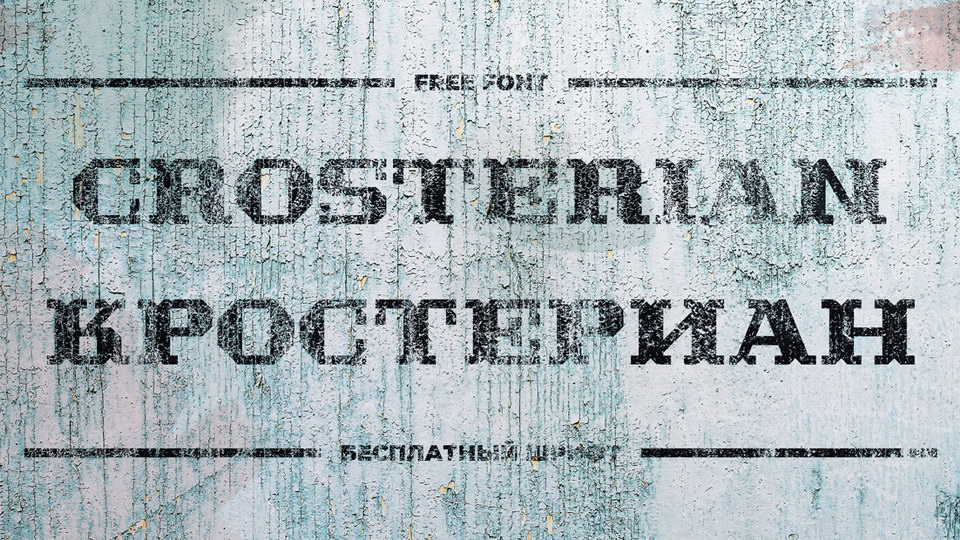
Feb 9, 2025DisplayCrosterian Font Crosterian is a geometric slab serif typeface inspired by Tuscan typefaces. It was designed specifically for display and headline use. Font DetailsDesigned by: Denis IgnatovWebsiteLicense: Free for commercial use, OFL Download Crosterian FontFile size: 68.87 KBCreated: February 16, 2025Updated: February 16, 2025 Download Explore similar fonts ST-Kidloco Font Palm Leaf Font Square Baby Font Pesani Ganaro Font Lokistar Font July Bubble Font # Block# Bold# Cool# Cyrillic# Decorative# Strong# Western More fonts by Denis IgnatovCramaten FontClickuper FontColatemta Font